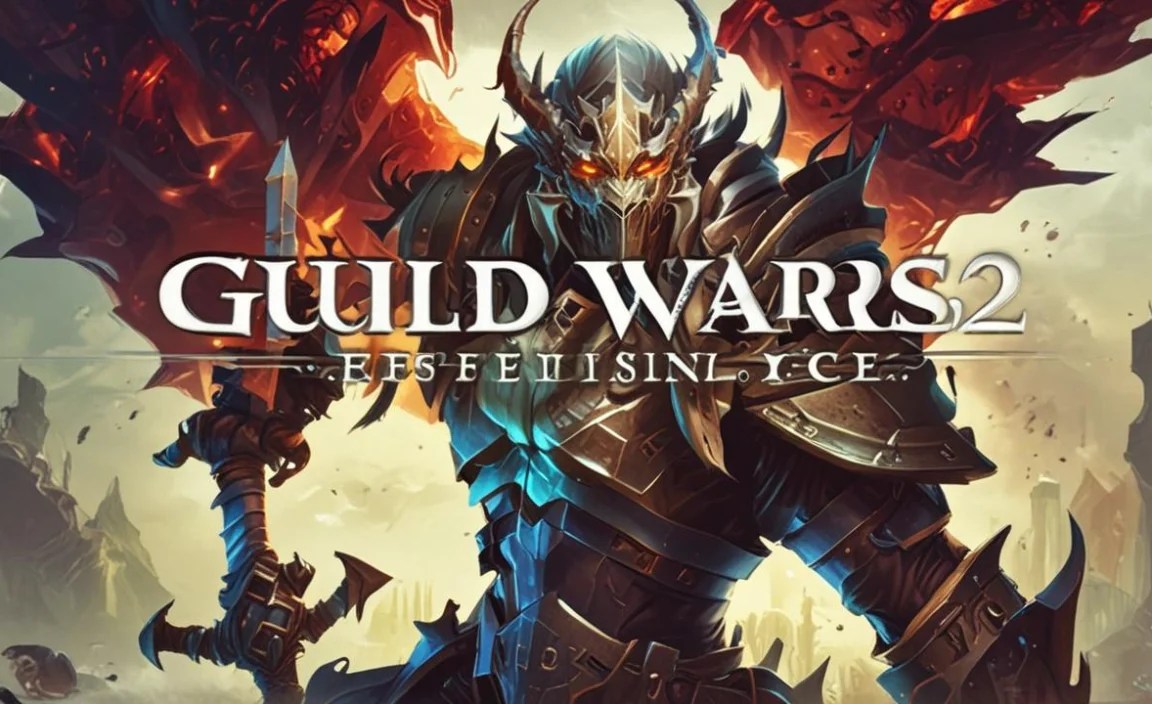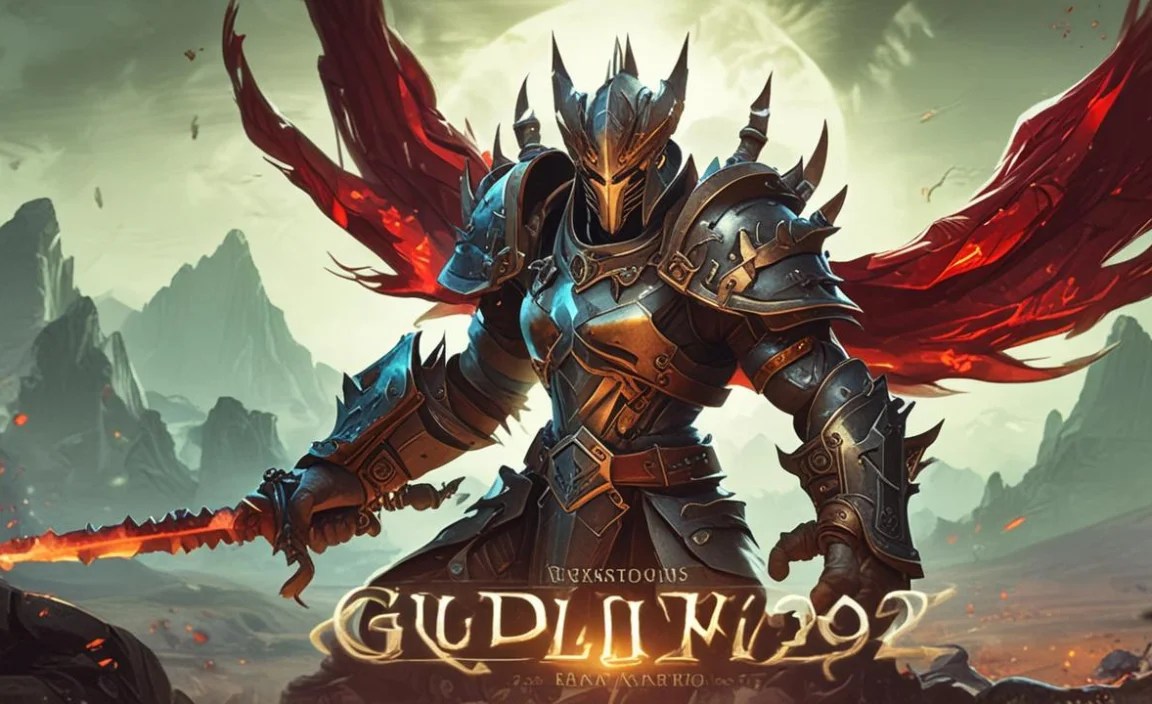
Looking for the perfect Guild Wars 2 Font? This essential guide unlocks how to find and use fonts that capture the game’s epic fantasy feel. We’ll explore font types, where to find them, and how to choose the best ones. Get ready to elevate your designs with the right typography!
Welcome, design adventurers! Ever felt a pang of longing for the perfect font to capture the magic of a fantastical world? Perhaps you’re designing a website for your Guild Wars 2 content, crafting a fan-made poster, or simply inspired by the game’s unique aesthetic. Picking the right font can feel like a quest in itself, with so many options and styles! Don’t worry, this guide is your trusty map. We’ll break down the Guild Wars 2 font style into simple terms, show you where to find fonts that fit, and help you make confident choices. Get ready to discover fonts that sing with adventure and intrigue!
Understanding the “Guild Wars 2 Font” Vibe
When we talk about the “Guild Wars 2 Font,” we’re not usually referring to one single, officially named font used everywhere. Instead, it’s more about a style or feeling that the game’s typography evokes. Think epic fantasy, a touch of ancient lore, and a sense of grand adventure. The game uses a variety of fonts, but they often share characteristics that contribute to this overall atmosphere.
Key Characteristics of Guild Wars 2-Inspired Typography:
- Legibility: Essential for reading quest text, character names, and UI elements, even during intense gameplay.
- Fantasy Influence: Often draws from medieval scripts, ancient runes, or calligraphic styles, but always with a modern, readable twist.
- Serif or Sans-Serif with Character: While many game fonts lean towards sans-serifs for clarity, they often have unique cuts, slightly bolder weights, or distinctive letterforms that give them personality. Some might even have subtle serif-like qualities.
- A Sense of History/Lore: The fonts can feel like they’ve been pulled from ancient scrolls or weathered stone.
- Versatility: Fonts in the game need to work for everything from fiery battle cries to quiet character backstories.
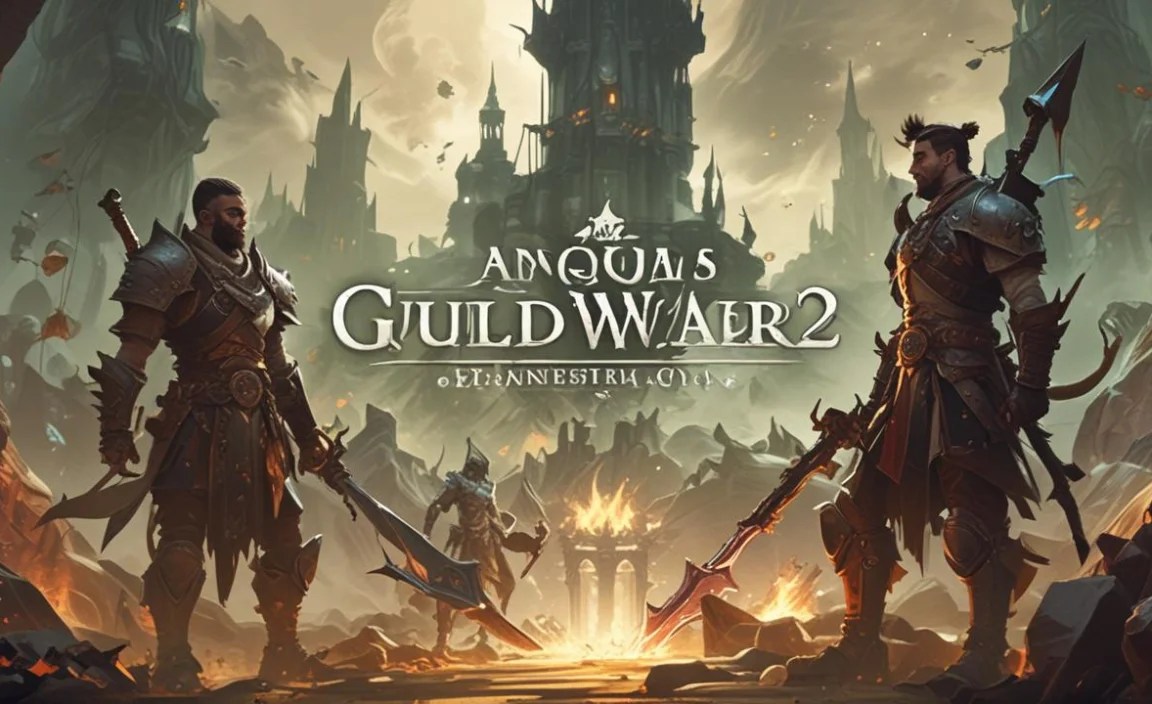
- Fantasy font
- Adventure font
- Medieval font
- Epic font
- Bold sans serif
- Condensed sans serif
- Rustic font
- Gothic font (use with caution, some can be too dark)
Choosing the Right Guild Wars 2 Font: A Practical Approach
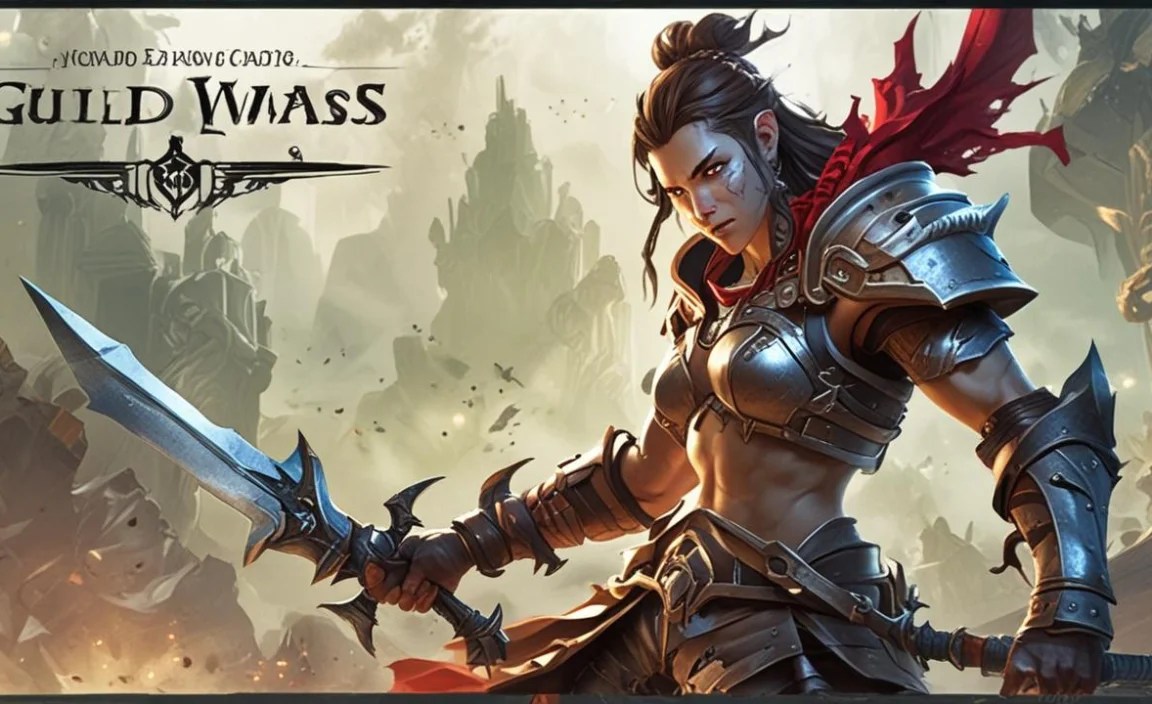
Selecting a font isn’t just about finding something that looks cool. It’s about choosing type that works for your project. For that epic Guild Wars 2 feel, consider these factors:
1. Readability First!
This is paramount, especially for user interfaces or any text that needs to be read quickly. A font might look amazing, but if players can’t read their health bar or quest details, it fails. For Body text, aim for fonts with:
- Clear, open letterforms
- Good x-height (the height of lowercase letters like ‘x’)
- Sufficient contrast between thick and thin strokes (if any)
- Ample spacing (both letter spacing/kerning and line spacing/leading)
For instance, a font like Roboto from Google Fonts, while not overtly “fantasy,” offers excellent readability with a modern, clean look that can be a great base for UI elements. Its slight geometric sans-serif style gives it a contemporary, functional feel.
2. Match the Mood and Theme
Guild Wars 2 has a diverse world. Are you going for the gritty, industrial feel of the Charr? The ethereal beauty of the Sylvari? The ancient, stoic nature of the Dwarves? Your font choice should reflect this.
What’s the difference between a serif and a sans-serif font?
A serif font has small decorative strokes (serifs) at the ends of the letter strokes, like Times New Roman. A sans-serif font does not have these strokes, appearing cleaner and more modern, like Arial or Helvetica. Serifs can lend a sense of tradition or formality, while sans-serifs often feel more contemporary and legible on screens.